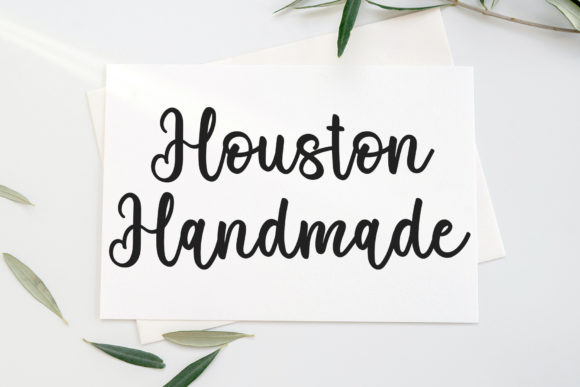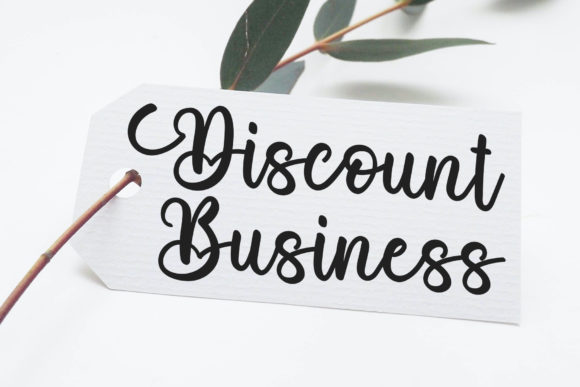
Comeback Font
db-ku.com - Script & Handwritten -- Comeback is a beautiful and whimsical script font. It is defined by smooth curves and is perfect for fashion branding or editorial designs. Add it confidently to your projects, and you will love the results.